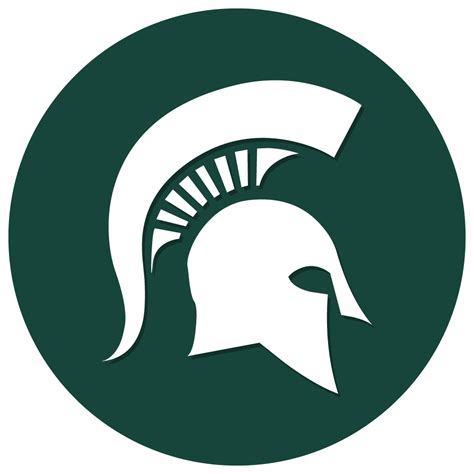
Michigan State University Logo Font: A Comprehensive Guide
Let’s dive into the fascinating world of the Michigan State University (MSU) logo font! For Spartans and design enthusiasts alike, understanding the visual identity of this esteemed institution is super interesting. In this comprehensive guide, we’ll explore everything you need to know about the fonts used in the MSU logo, their significance, and how they contribute to the university’s brand. So, whether you’re a student, alumni, graphic designer, or just a curious mind, get ready to uncover the secrets behind the iconic MSU typography!
The Significance of Fonts in Branding
Fonts play a crucial role in branding, guys. They’re not just about making words readable; they evoke emotions, communicate values, and create a lasting impression. Think about it: a playful, rounded font might suit a children’s brand, while a sharp, elegant serif font often conveys sophistication and tradition. For universities like Michigan State, fonts are a key element in projecting an image of academic excellence, history, and community spirit.
When it comes to university branding, consistency is key. Using the same fonts across all materials – from the logo to websites, brochures, and even social media – helps create a cohesive and recognizable brand identity. This consistency reinforces the university’s image and makes it instantly identifiable to students, alumni, and the wider community. A well-chosen font can also differentiate a university from its competitors, helping it stand out in a crowded marketplace of higher education.
Typography also impacts readability and accessibility. A font that is easy to read ensures that the university’s message is clear and accessible to everyone, regardless of their visual abilities. Considering these factors, universities often invest considerable time and resources in selecting and implementing their brand fonts. Michigan State University is no exception, carefully choosing fonts that reflect its values and support its communication goals. The fonts used in the MSU logo and other branding materials have been carefully selected to embody the university’s spirit and values. They contribute to a sense of tradition, academic rigor, and community, helping to create a strong and recognizable brand identity. Keeping these factors in mind ensures that the university’s message is clear, accessible, and resonates with its diverse audience.
Unveiling the Official MSU Logo Font
So, what’s the official font used in the Michigan State University logo? Well, the primary font used in the MSU logo is a custom typeface. This means it wasn’t just picked off the shelf; it was designed specifically for the university to create a unique and recognizable visual identity. The font is a modified version of a sans-serif typeface, characterized by its clean lines and modern feel. While the exact specifications of the custom font are proprietary, it closely resembles other well-known sans-serif fonts.
The custom font is typically used for the iconic “MSU” letters in the logo. This bespoke design ensures that the logo is unique and cannot be easily replicated using standard fonts. The letters are bold and strong, reflecting the university’s strength and tradition. The custom font is carefully crafted to ensure that the letters are balanced and visually appealing. Each curve and angle has been meticulously designed to create a harmonious and recognizable logo.
Other fonts are used in association with the MSU brand, especially in official documents and marketing materials. While the logo itself features the custom typeface, supporting fonts are used for body text and headlines. These fonts are selected to complement the logo font and maintain a consistent visual identity. They are often chosen for their readability and versatility, ensuring that the university’s message is clear and accessible across all platforms. Using a combination of fonts allows MSU to create a visually appealing and cohesive brand identity. The custom logo font provides a unique and recognizable element, while the supporting fonts ensure readability and consistency in all communications. This careful selection of fonts reinforces the university’s image of academic excellence and community spirit.
Identifying Similar Fonts
Okay, so you’re probably thinking, “I can’t get my hands on the exact MSU logo font, so what can I use that’s similar?” Great question! While the official font is custom, there are several commercially available fonts that share similar characteristics. These fonts can be used for projects where you want to capture the spirit of the MSU brand without directly replicating the logo.
Some fonts that closely resemble the MSU logo font include:
• Helvetica: A classic sans-serif font known for its clean and neutral design. Helvetica is widely used and is a good choice for projects that require a modern and legible typeface.
• Arial: Another popular sans-serif font that is similar to Helvetica. Arial is a standard font on most computers, making it easily accessible.
• Univers: A versatile sans-serif font with a wide range of weights and styles. Univers is known for its geometric design and readability.
• Proxima Nova: A modern sans-serif font that has gained popularity in recent years. Proxima Nova is known for its clean lines and contemporary feel.
When choosing a substitute font, pay attention to the following characteristics:
• Overall shape: Look for fonts with similar letterforms, especially in the “M,” “S,” and “U” characters.
• Weight: The MSU logo font is bold, so choose a font with a similar weight.
• Spacing: The spacing between letters can affect the overall appearance of the font. Choose a font with appropriate letter spacing.
By considering these factors, you can find a font that closely resembles the MSU logo font and captures the essence of the university’s brand. Remember to use these fonts responsibly and avoid using them in a way that could be misleading or infringe on the university’s trademark. When in doubt, consult with a professional designer to ensure that you are using the fonts appropriately.
Using the MSU Logo Font Responsibly
Now, a word of caution, guys. Using the MSU logo or its associated fonts requires respect and adherence to the university’s brand guidelines. The logo and fonts are valuable assets that represent the university’s identity and reputation. Using them inappropriately can damage the brand and create confusion.
Here are some guidelines to keep in mind:
• Always use official logo files: Never try to recreate the logo yourself. Obtain official logo files from the university’s communications or marketing department.
• Follow brand guidelines: Adhere to the university’s brand guidelines regarding logo usage, color palettes, and font choices.
• Respect trademark: The MSU logo is a registered trademark. Avoid using it in a way that could infringe on the university’s rights.
• Seek permission: If you are unsure about how to use the logo or fonts, seek permission from the university’s communications or marketing department.
Using the MSU logo and fonts responsibly ensures that you are representing the university in a positive and accurate light. It also helps protect the university’s brand and reputation. By following these guidelines, you can contribute to maintaining a consistent and professional image for Michigan State University.
The Michigan State University logo hasn’t always looked the way it does today. Over the years, it has evolved to reflect the changing times and the university’s growth. Understanding the evolution of the logo can provide valuable insights into the university’s history and its commitment to innovation.
Early versions of the logo featured different designs and fonts. These logos often incorporated images of Spartans or other symbols associated with the university. As the university grew and its brand became more established, the logo was simplified and modernized. The current logo, with its clean sans-serif font and bold letters, represents a departure from the more ornate designs of the past.
The evolution of the MSU logo reflects the university’s commitment to progress and its desire to stay relevant in a changing world. The current logo is a symbol of the university’s strength, tradition, and academic excellence. It is a visual representation of the university’s mission to advance knowledge and transform lives. By understanding the history of the logo, we can appreciate its significance and its role in shaping the university’s identity.
Where to Find Official MSU Branding Resources
Alright, so where can you actually find these official logo files and brand guidelines we’ve been talking about? Don’t worry, MSU makes it pretty easy to access their branding resources.
The best place to start is the Michigan State University Communications and Brand Strategy website. Here, you’ll find a wealth of information about the university’s brand, including:
• Logo guidelines: Detailed instructions on how to use the MSU logo correctly, including size, placement, and color variations.
• Font guidelines: Information about the official MSU fonts and how to use them in different contexts.
• Color palette: The official MSU color palette, including primary and secondary colors.
• Templates: Pre-designed templates for various marketing materials, such as brochures, flyers, and presentations.
• Downloads: Official logo files in various formats, suitable for both print and digital use.
By utilizing these official resources, you can ensure that you are representing Michigan State University in a consistent and professional manner. These resources are regularly updated to reflect the latest brand guidelines, so it’s always a good idea to check back periodically to ensure that you have the most current information.
The Michigan State University logo is more than just a visual symbol; it’s a representation of the university’s history, values, and aspirations. The carefully chosen fonts, colors, and design elements come together to create a powerful and recognizable brand identity.
Understanding the fonts used in the MSU logo allows us to appreciate the thought and effort that goes into creating a strong brand. While the official font is custom, similar fonts can be used to capture the spirit of the MSU brand in various projects. However, it’s important to use these fonts responsibly and adhere to the university’s brand guidelines.
As Michigan State University continues to evolve and grow, its logo will remain a constant symbol of its enduring legacy. It is a reminder of the university’s commitment to academic excellence, community engagement, and the pursuit of knowledge. So, the next time you see the MSU logo, take a moment to appreciate the story behind it and the values it represents.